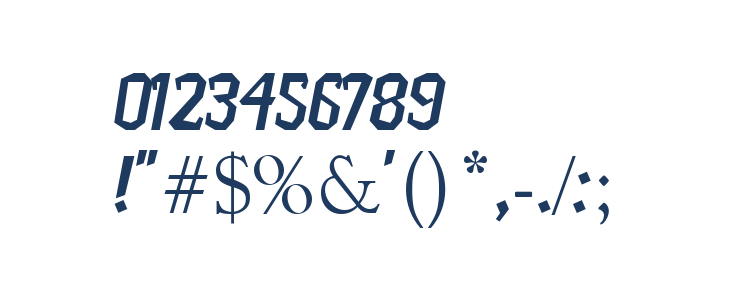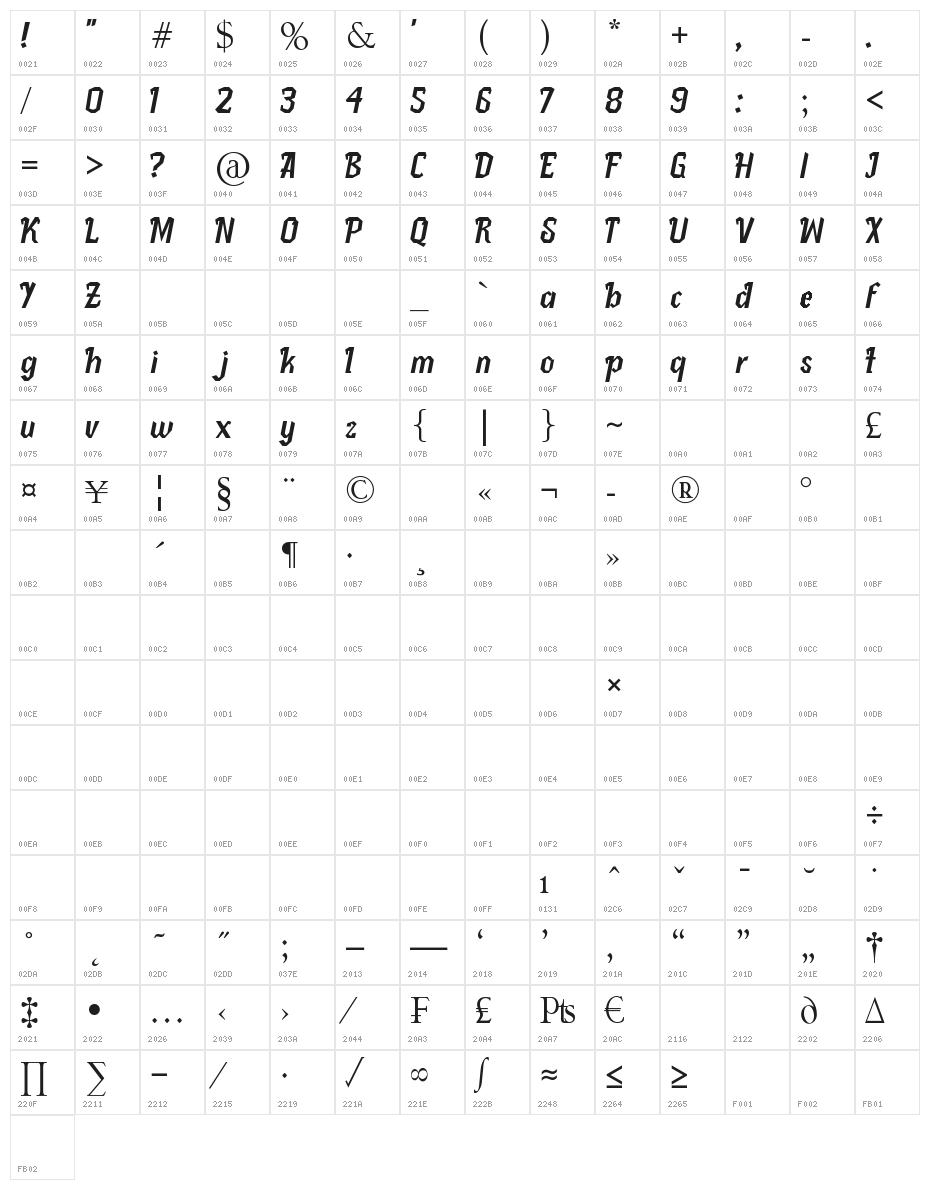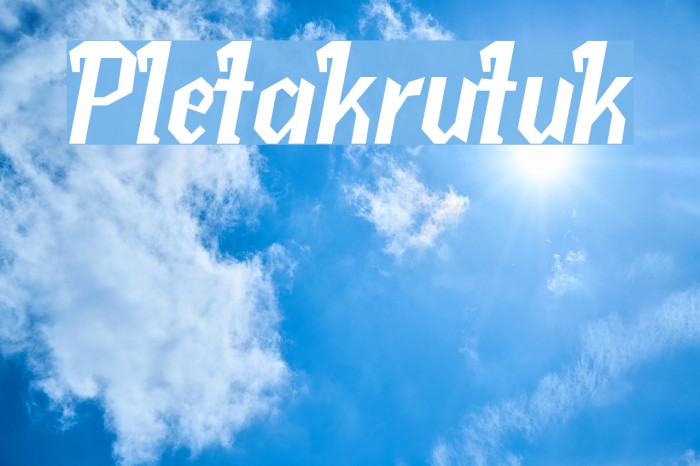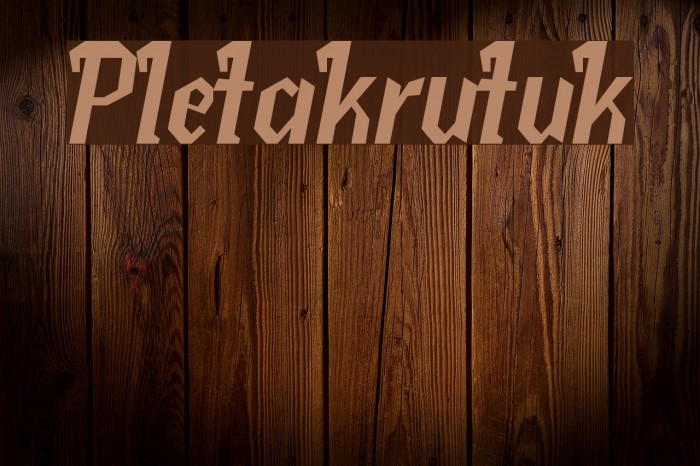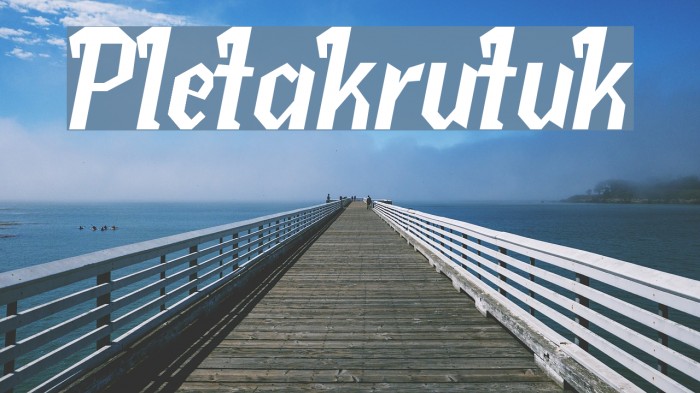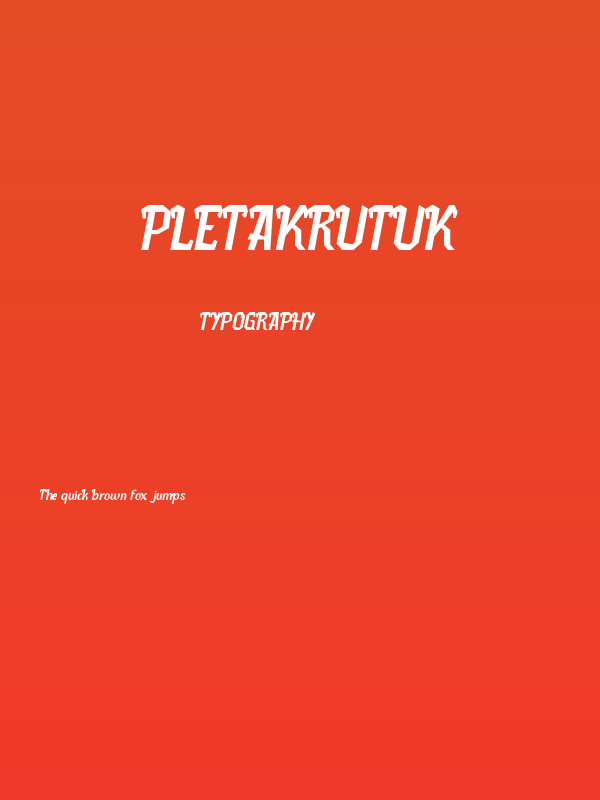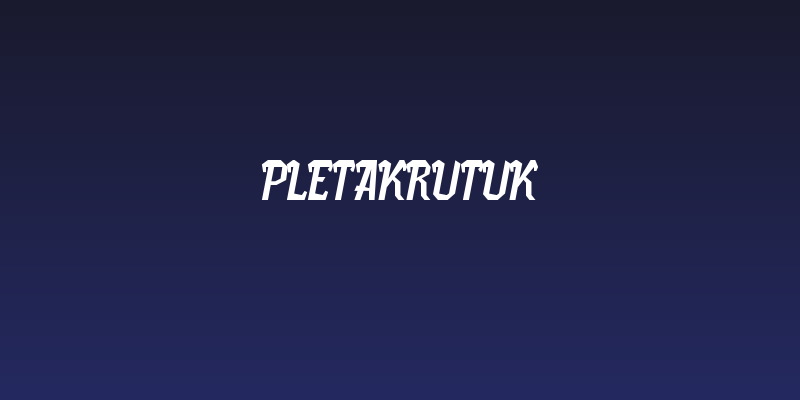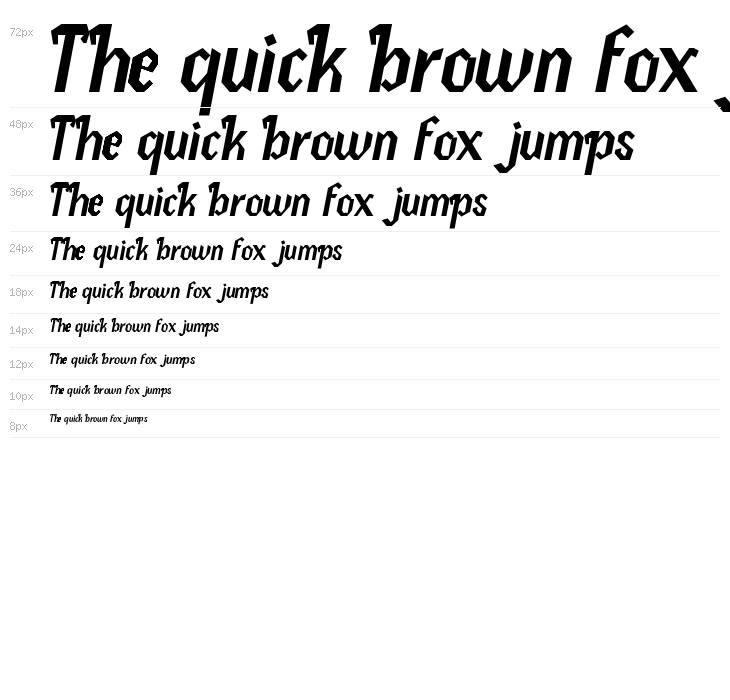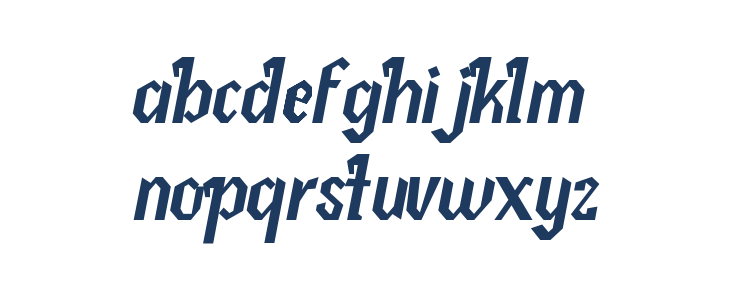
Pletakrutuk Font
Pletakrutuk Description
This font features a bold and angular design with a strong geometric influence. The characters are sharply defined, with a distinct slant that gives them a dynamic and energetic appearance. The uppercase letters are particularly striking, with a uniform height and consistent stroke width that creates a cohesive look. The lowercase letters maintain the same angular style, providing a seamless transition between cases. Numbers and special characters are equally bold and well-defined, ensuring readability and impact. The overall style is modern and edgy, making it suitable for projects that require a strong visual statement.
| Proposed Projects | Ideal for branding, posters, and headlines that need a strong, modern impact. |